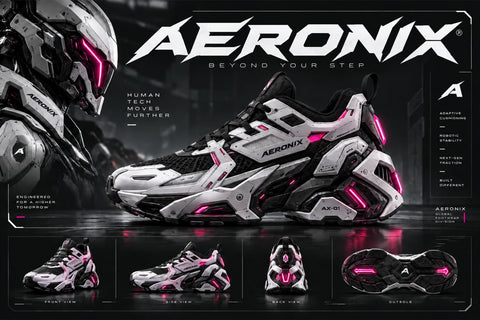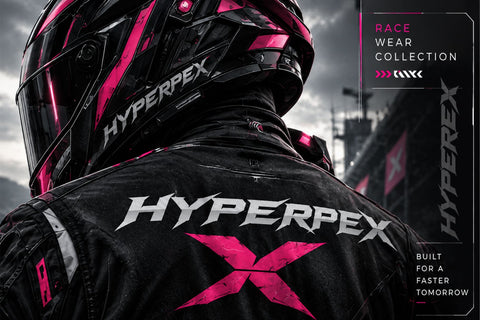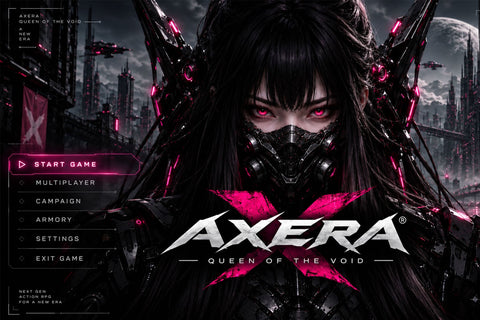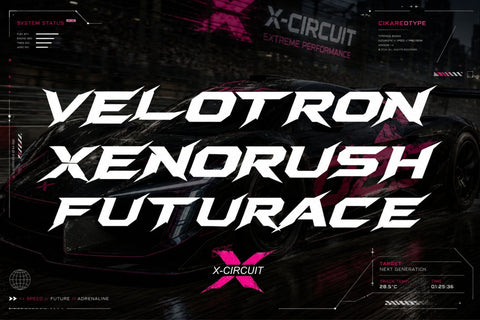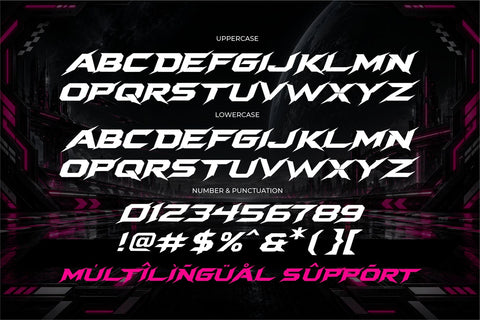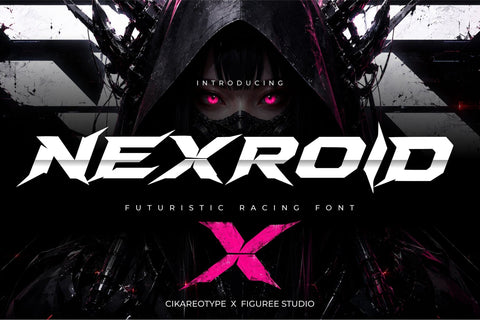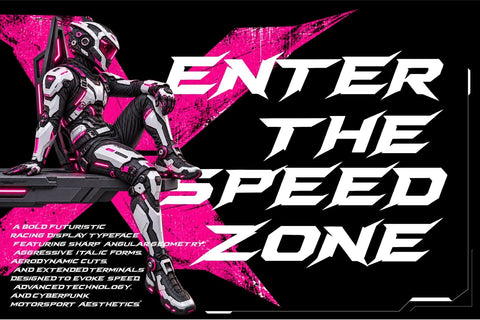
Nexroid – Powerful Futuristic Racing Font
Nexroid is a powerful futuristic racing font built for designs that demand speed, technology, precision, and high-impact energy. Inspired by modern motorsport graphics, racing culture, futuristic interfaces, and performance branding, Nexroid delivers bold uppercase characters with a sharp and dynamic visual personality.
Its strong geometric construction makes it ideal for racing logos, automotive branding, motorsport posters, esports graphics, gaming titles, sports apparel, vehicle graphics, product packaging, technology campaigns, social media designs, and promotional artwork. The uppercase character set creates an aggressive headline presence while maintaining a clean and professional appearance.
Nexroid includes multilingual support for versatile international projects, along with numbers and punctuation for complete typography and practical design compositions.